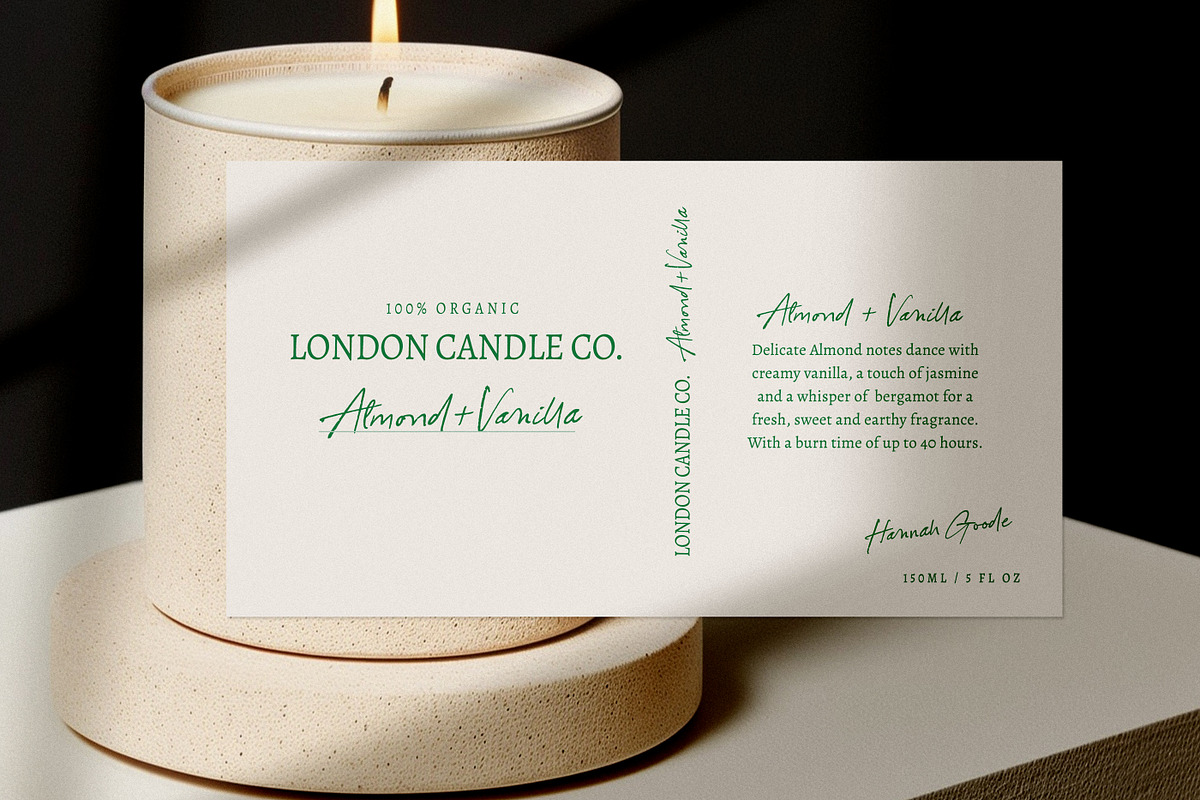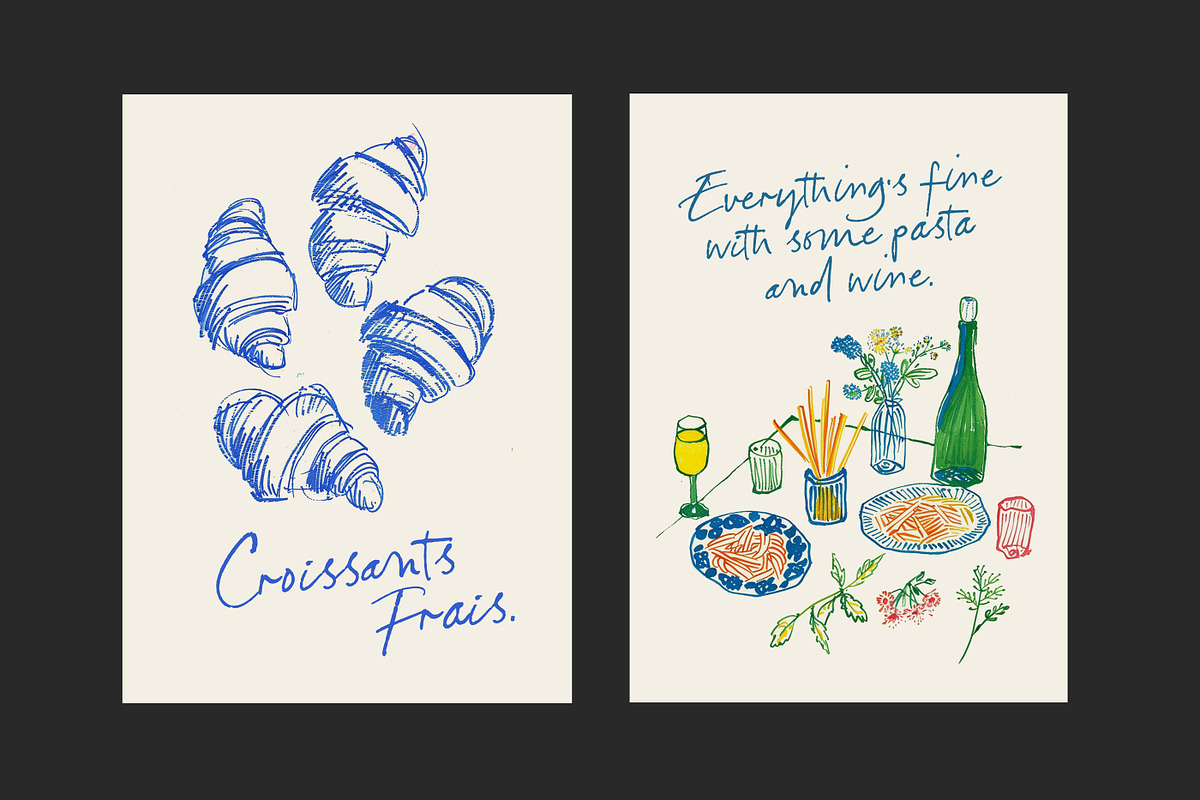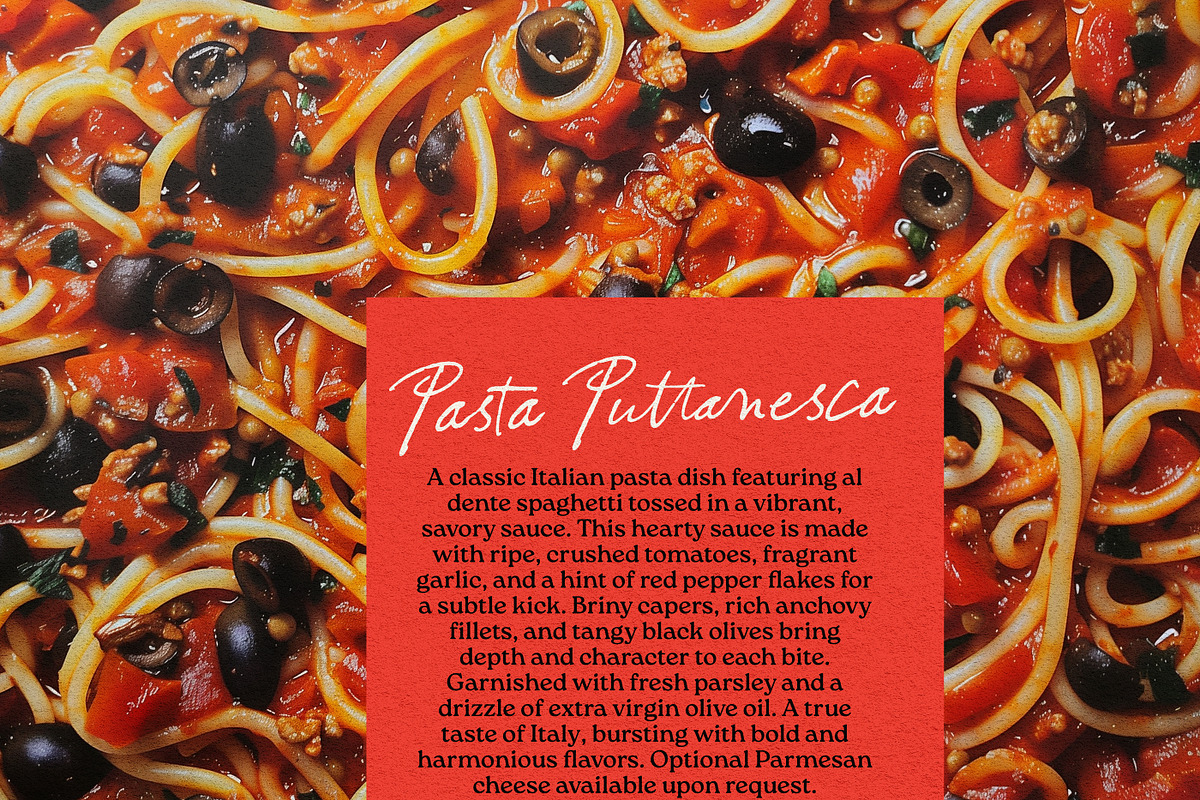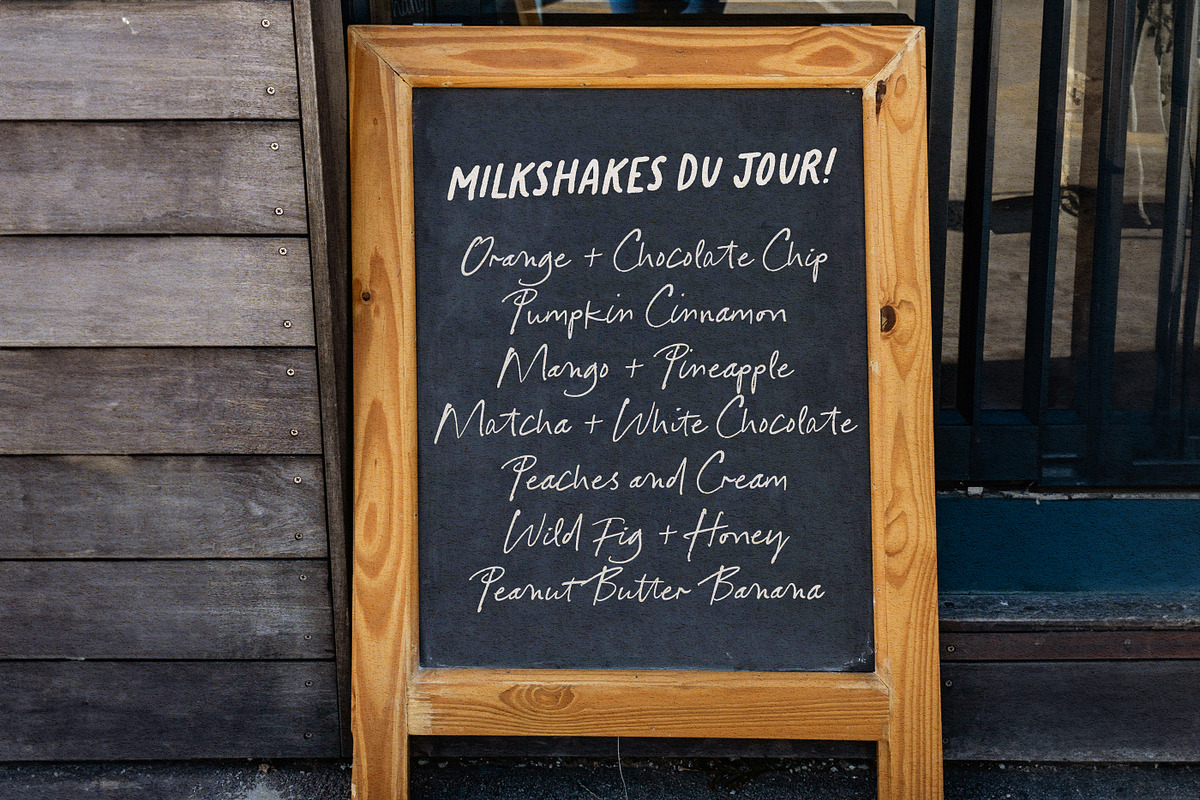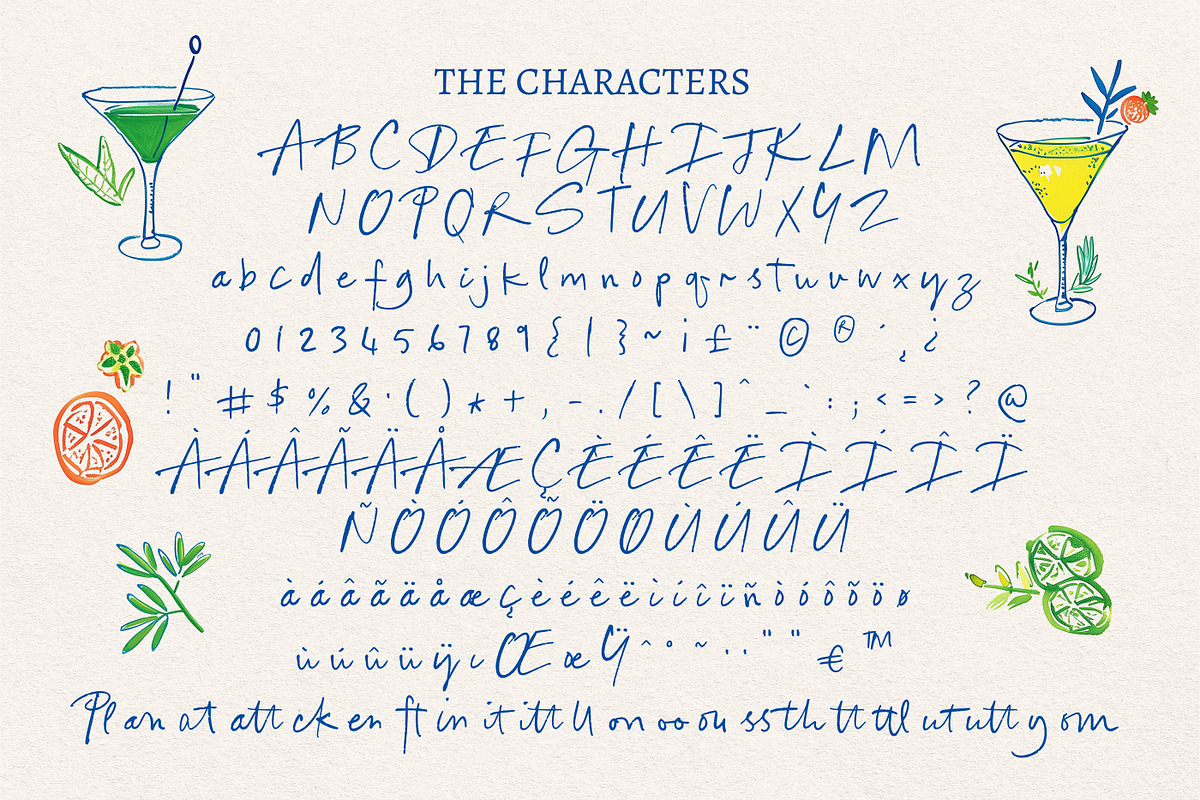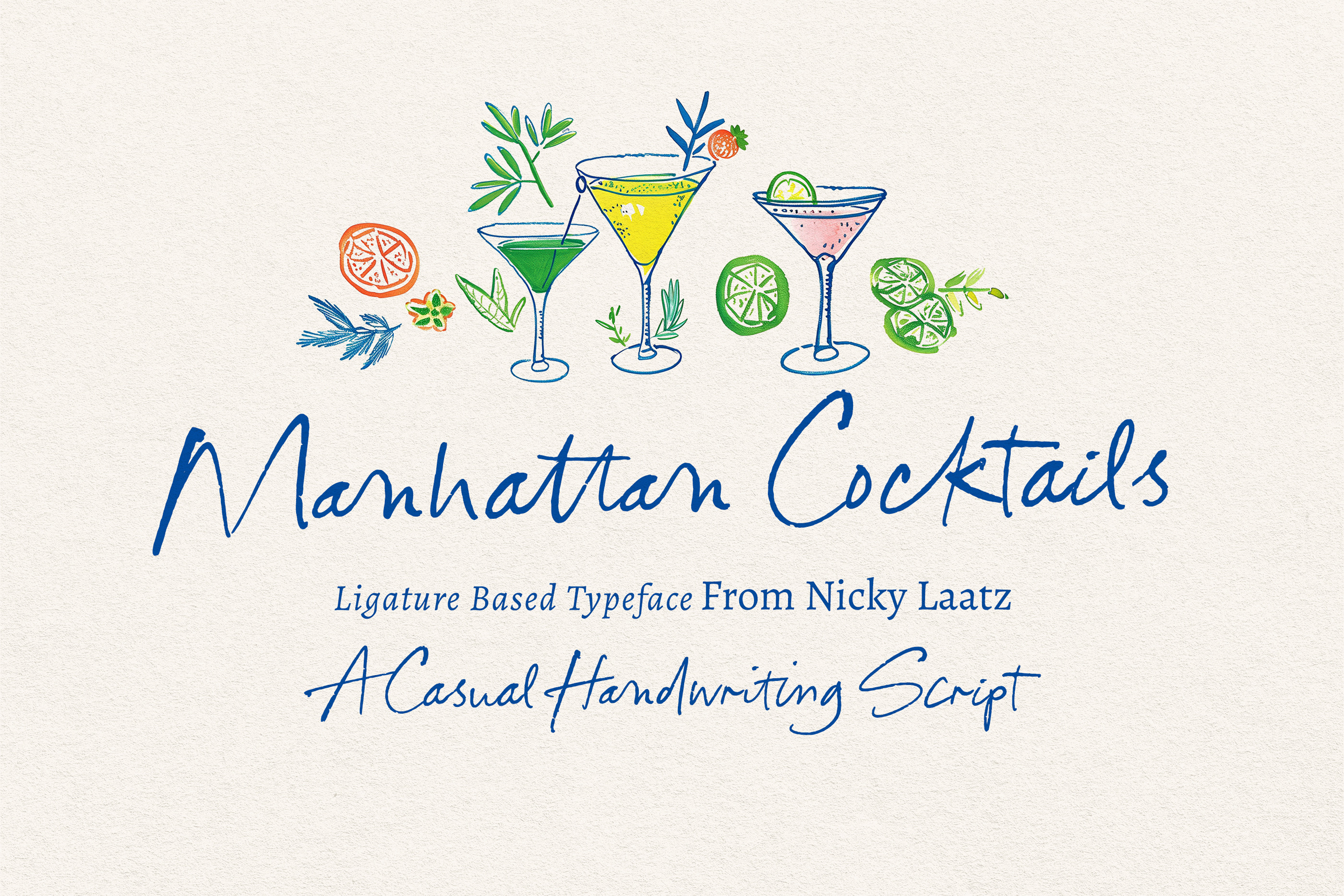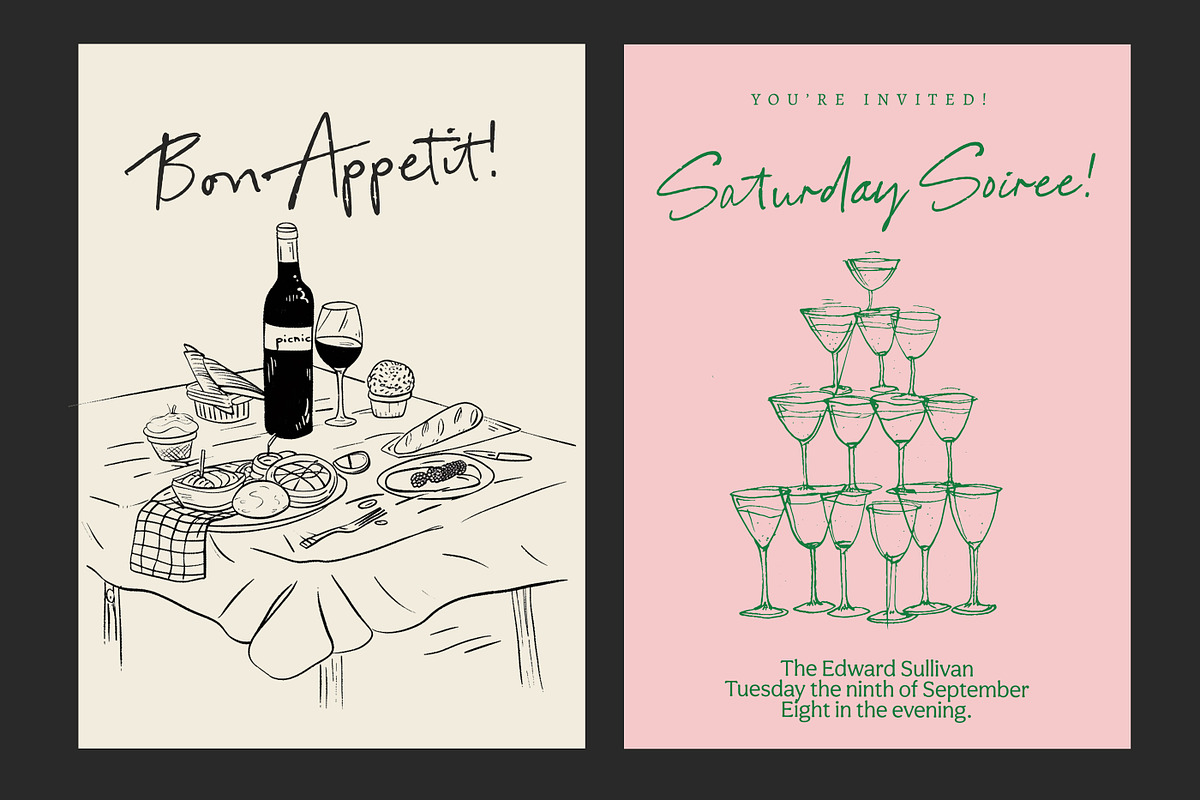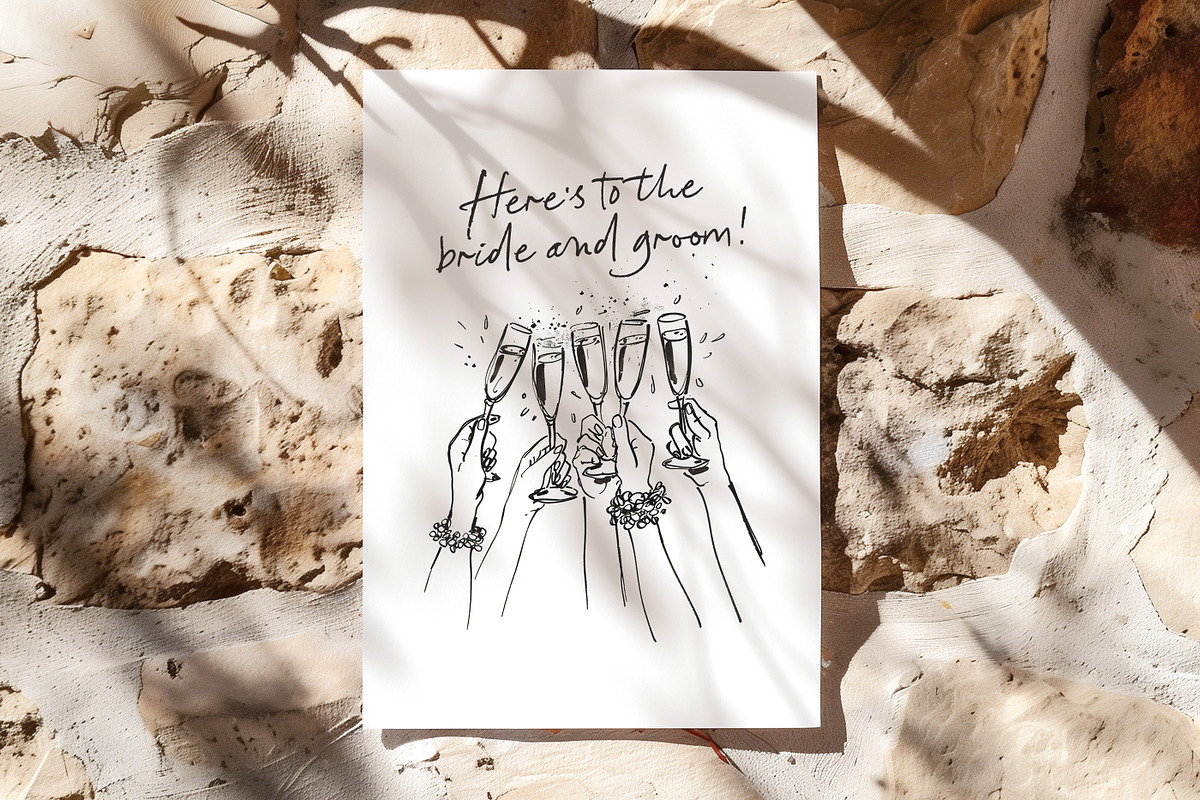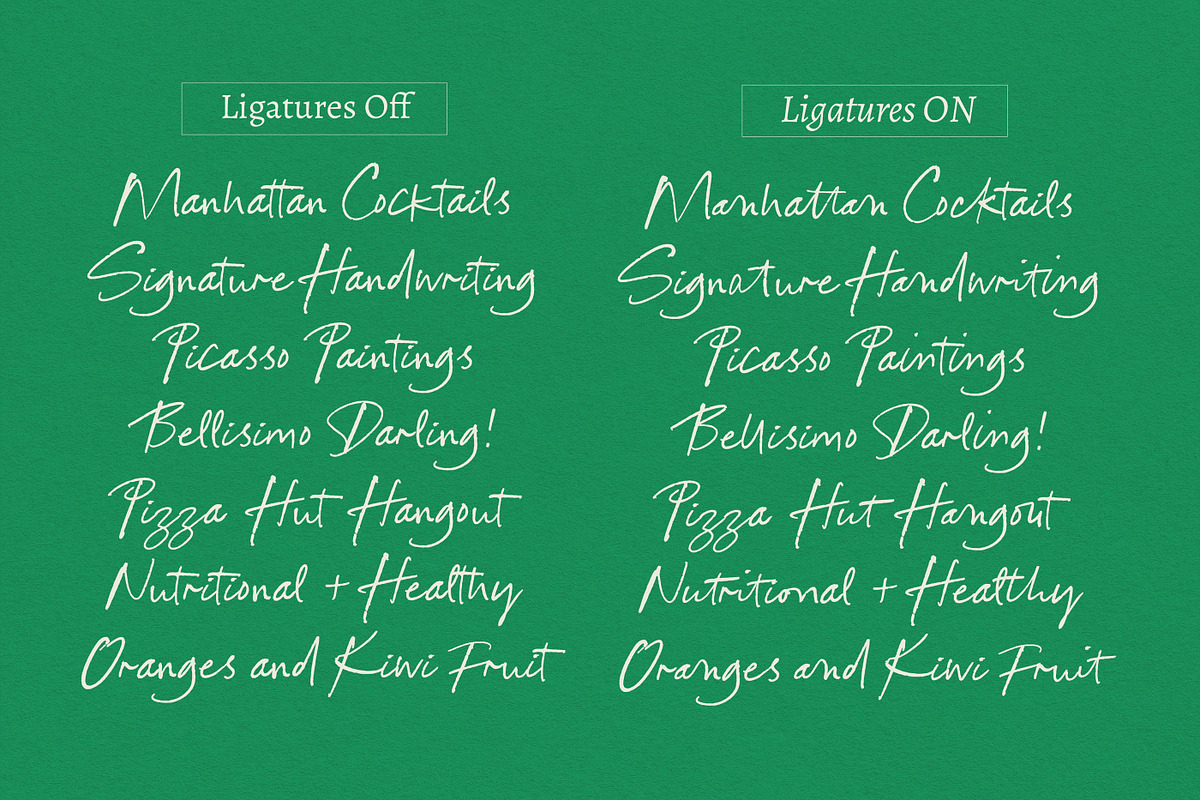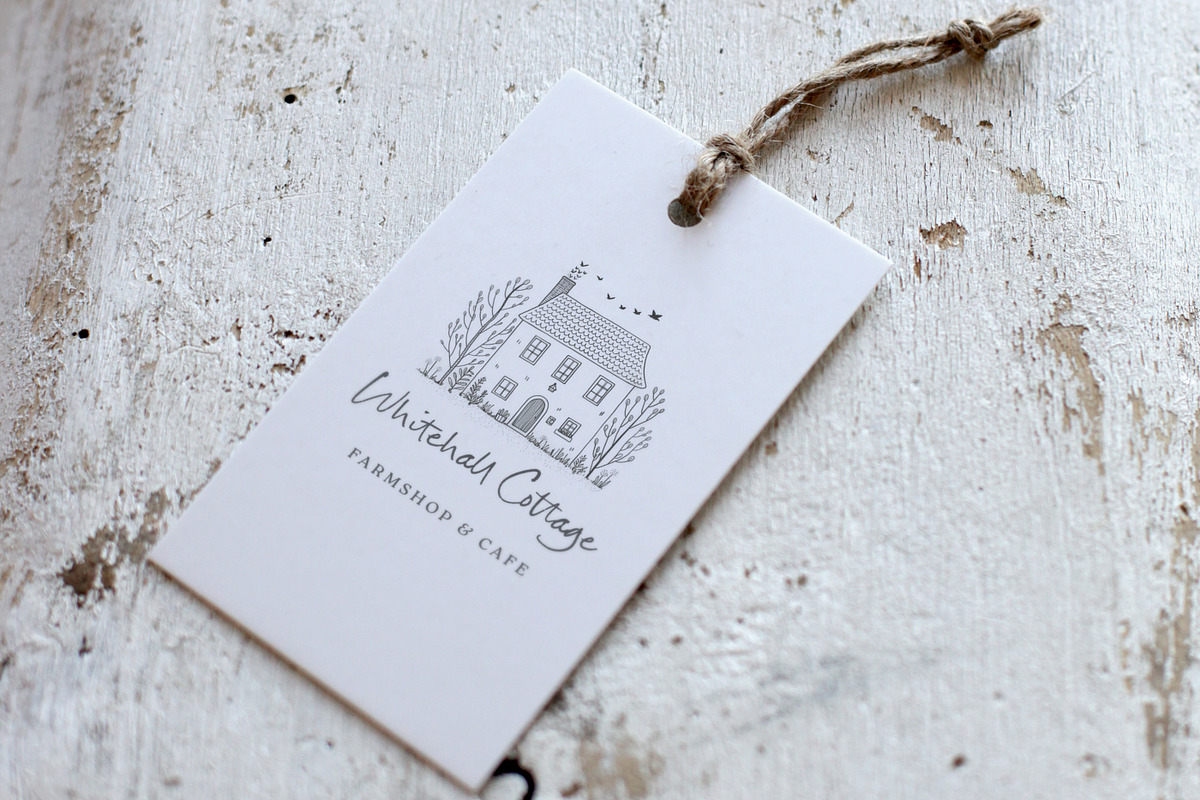
Manhattan Cocktails Handwritten Font
Say hello to Manhatten Cocktails! - A ligature-based, casual handwriting script typeface, with a natural & lighthearted feel.
THere are 3 variants included for you - Regular, Semi Oblique and Oblique - each with a slightly different feel :)
Language support :
Danish, English, Filipino, French, Friulian, Galician, Gusii, Italian, Low German, Luo, Luxembourgish, Norwegian Bokmål, Norwegian Nynorsk, Portuguese, Spanish, Swedish, Swiss German.